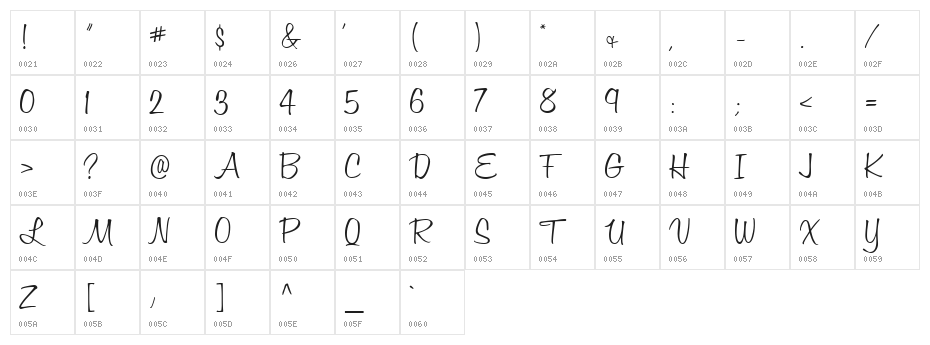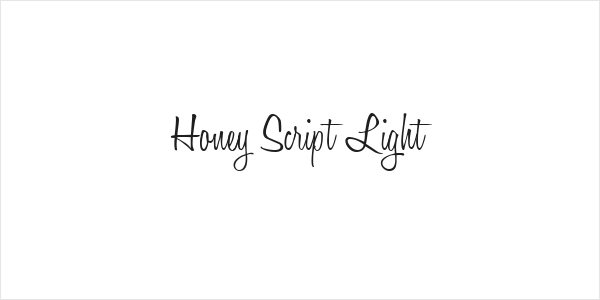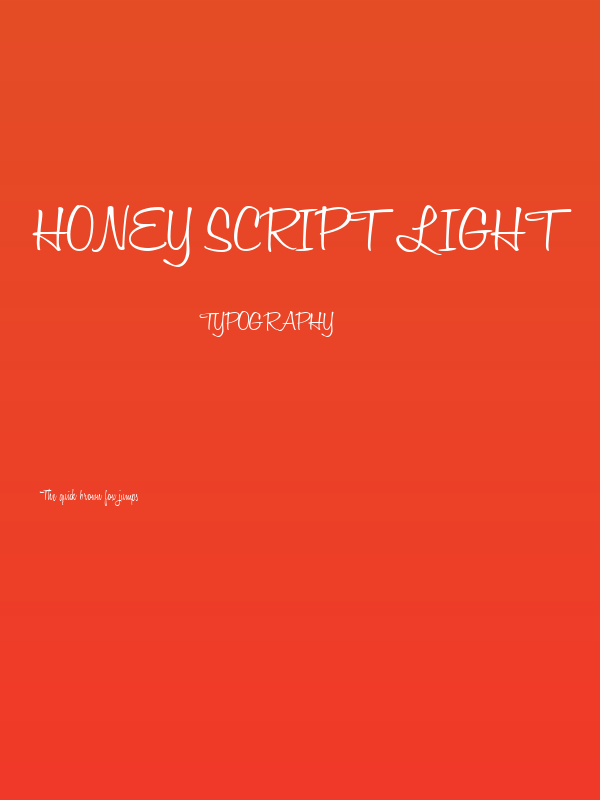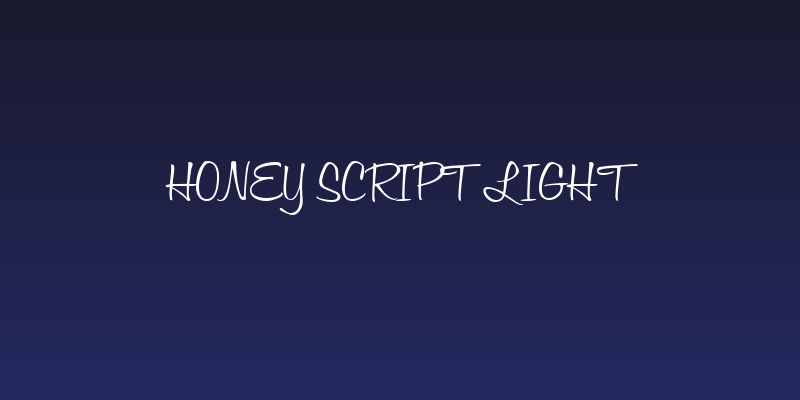
Honey Script Light Font
Honey Script Light Description
This font features a flowing, cursive style that mimics elegant handwriting. The uppercase letters are tall and slightly slanted, with smooth curves and a graceful appearance. The lowercase letters are more compact, maintaining the fluidity and connectedness typical of script fonts. Numbers and special characters follow the same elegant style, ensuring consistency throughout. The font's overall look is both sophisticated and approachable, making it suitable for a variety of creative applications.
ContrastMedium
Overall StyleElegant
Use CaseLogos, Invitations, Decorative text
Proposed ProjectsIdeal for wedding invitations, greeting cards, branding, and elegant logo designs.